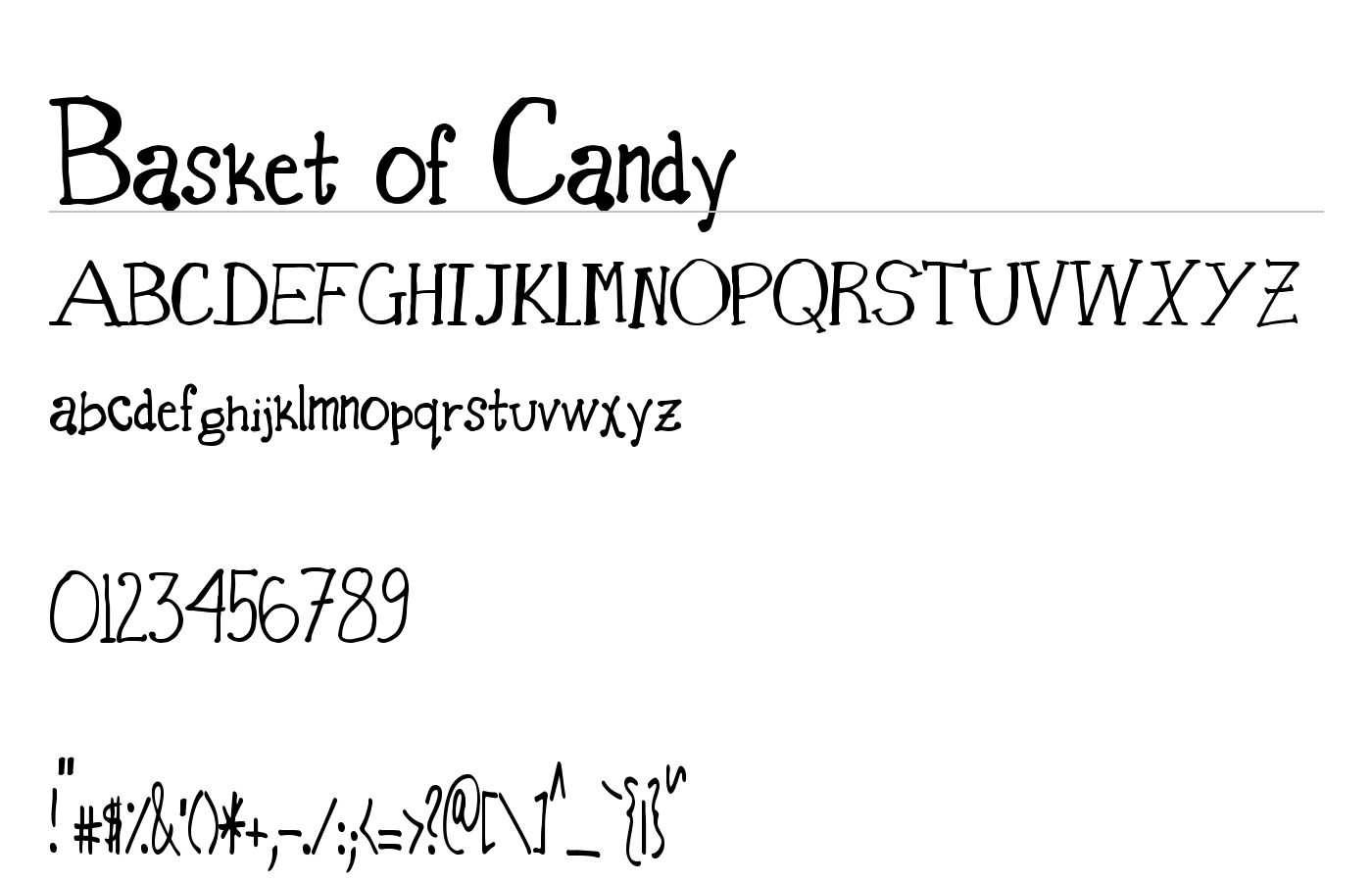
Basket of Candy is a playful handwritten serif font with a whimsical, irregular style that gives it a charming, friendly personality. Its thin strokes and uneven letterforms create a casual, approachable feel, making it perfect for informal designs that need a touch of fun and creativity, such as children’s books, invitations, or quirky branding. This font works best in headlines or short phrases where its unique character can shine and add a personal, handcrafted touch.
Basket of Candy Font
About Basket of Candy Font